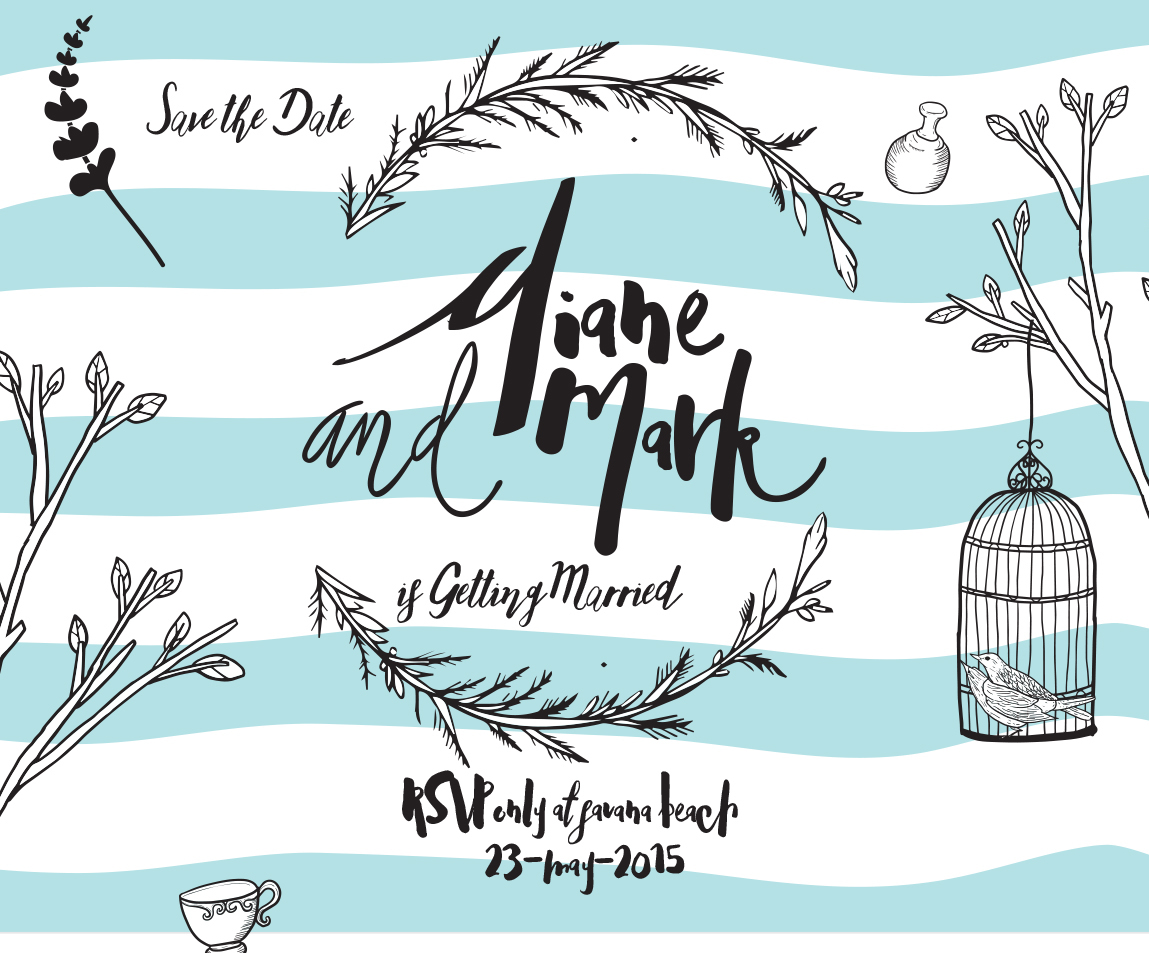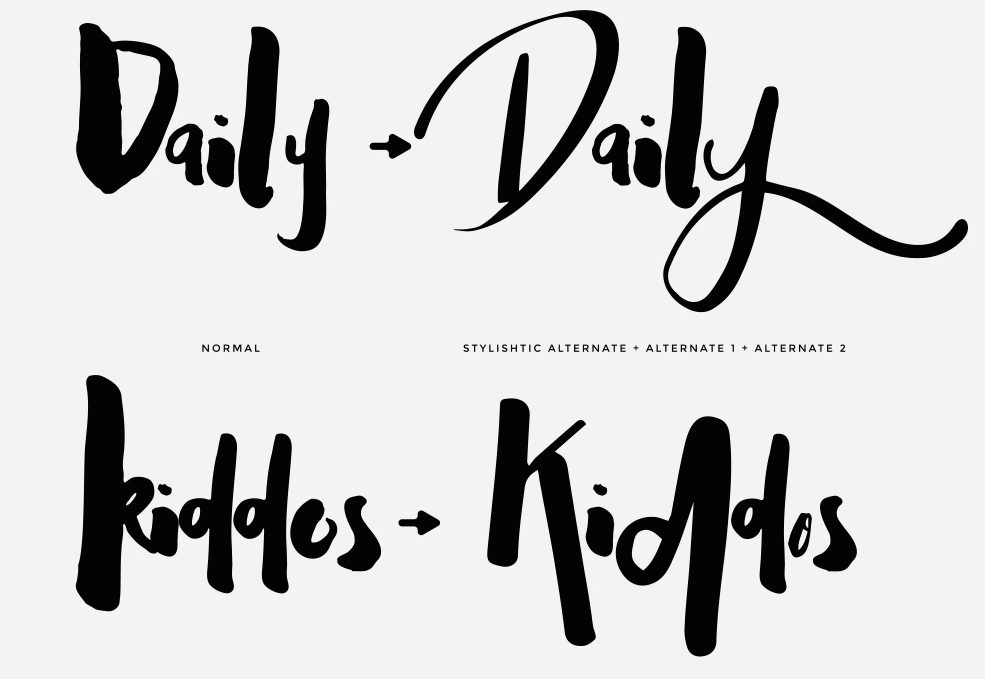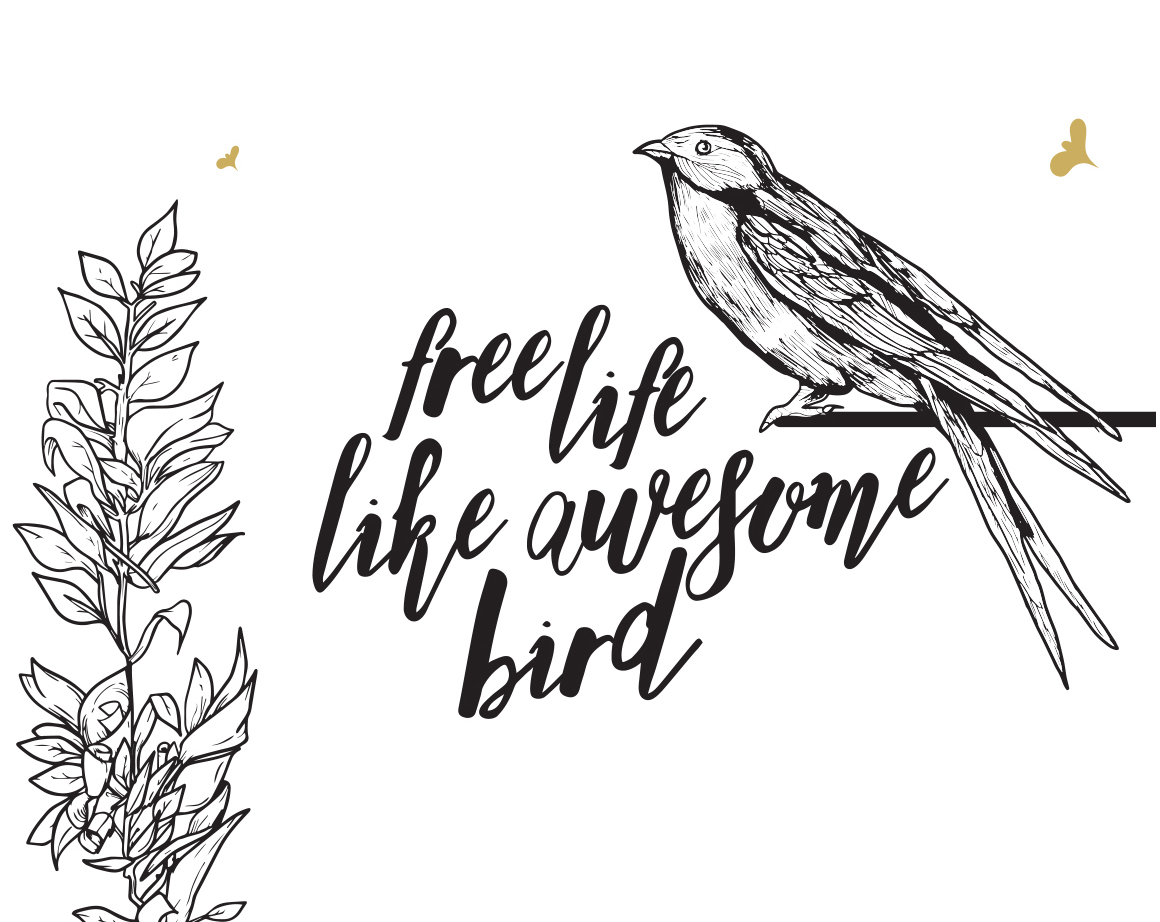
Fortunes Co (was: Celcius Design) [Ramandhani Nugraha]
Cimahi / Bandung, Indonesia-based designer (b. 1986) of the hand-lettered alphabets Awesome (2015), Wonderwall (2015, a splash brush font), Valencia Sweetness (2015, brush script), Basik Rough (2015, brush), Innocents (2015), Againts (2014) (sic) and Leathery (2014).
Other typefaces: Magenta Latte, Glamour Beauty (2016), Traveler (2016: dry brush style), Electric Vibe (2016: dry brush script), Nouvele Louisela (sic: this 2016 renaissance typeface was influenced by the chancery hand), Valencia Sans (2016, brush script), Burnts Marker (2015, a dry marker script), Celestial (2015, pure Victoriana), Borderland (2015).
Typefaces from 2017: Beast (rough brush, SVG format), Mield Script, Fountain, Celestial, Postmark Typewriter (rough and textured), Pinkerton Script, Manhattan (brush script), Brighton (Victorian), Loveable Script, Camp Press, Campground (connected script; free after a complicated immigration procedure; see also Pixel Surplus).
Typefaces from 2018: Minted Mood, Modular, Carlsons Script (a vintage lettering family), Milestone (baseball script), Maldina, Signatra, Block.
Typefaces from 2019: Milles (an SVG format dry brush script), Miles Handwriting, Wincosin (free art nouveau caps), Hey Fonallia, Liondales.
Typefaces from 2020: Futurama (octagonal), Bilestone (a retro signage script), Morning Violetta (a swirly creamy display typeface).
Typefaces from 2021: Boldies Slab, Fd Catilde (a decorative serif with severely explicit ink traps), Fd Hallway (a retro signage or baseball script), Cutterlakes Script (a fat finger font).